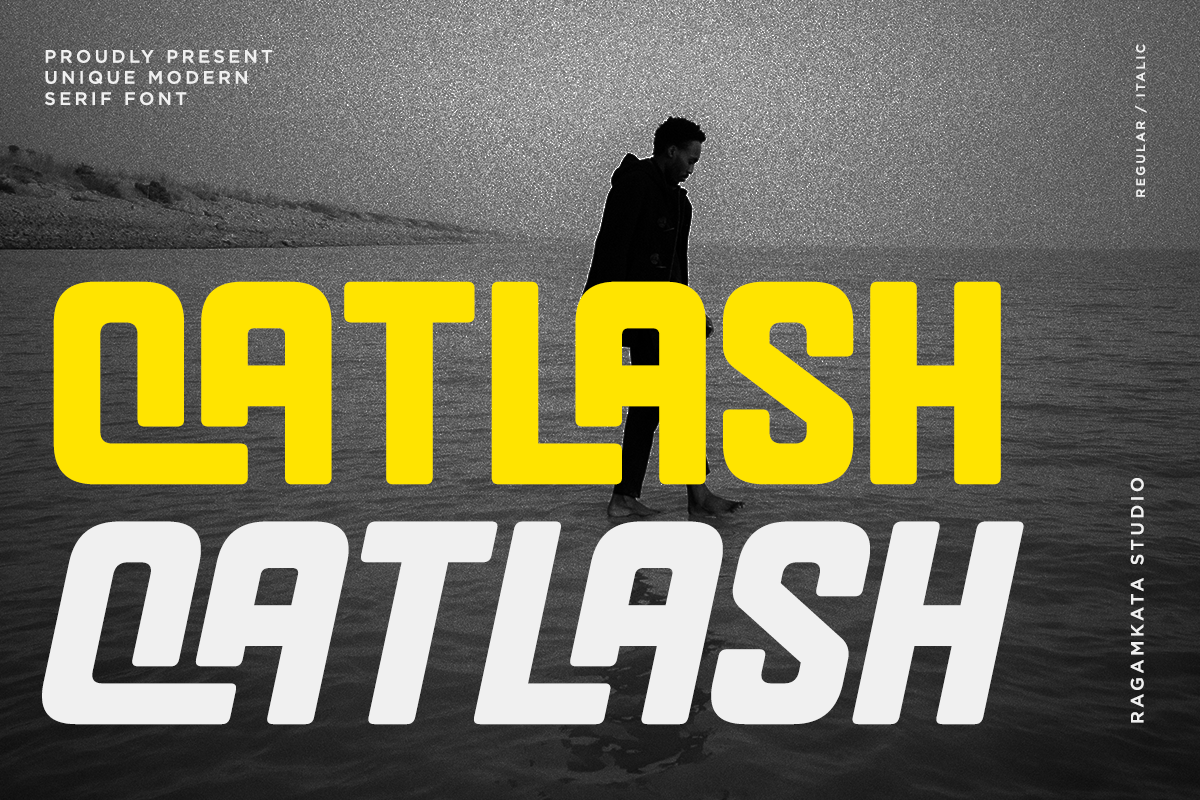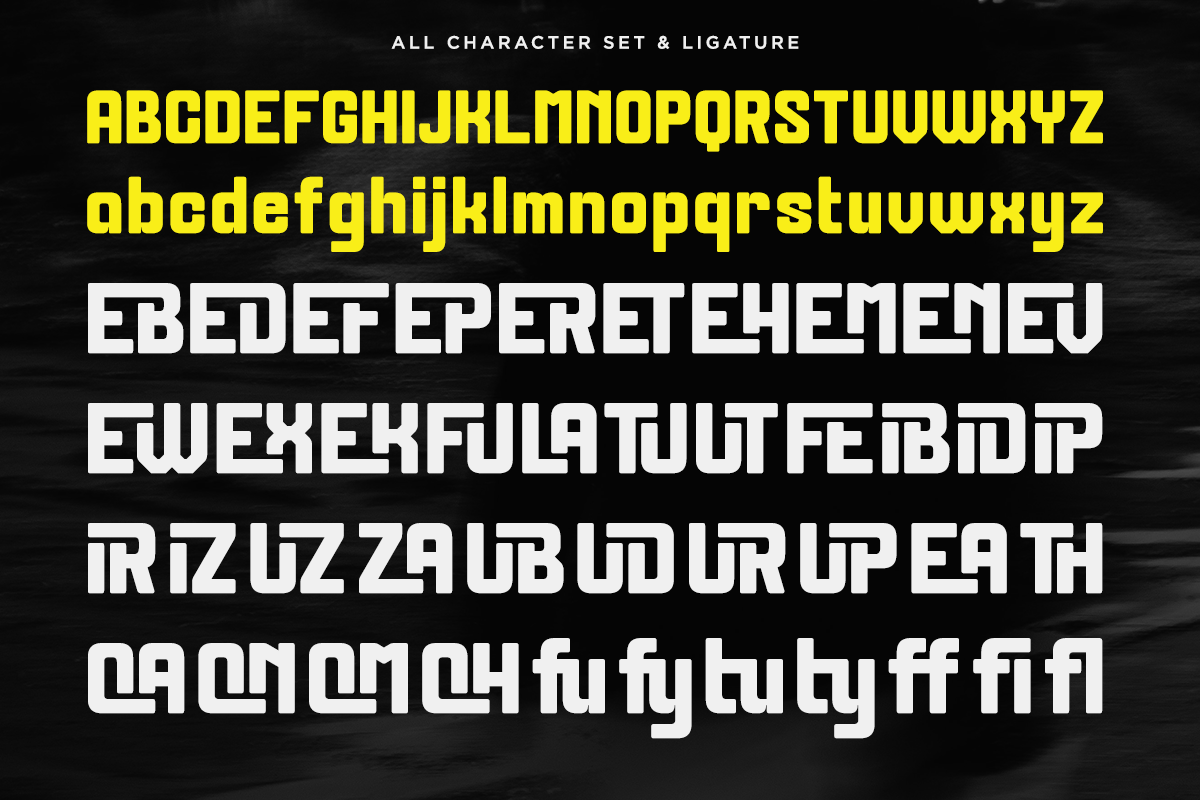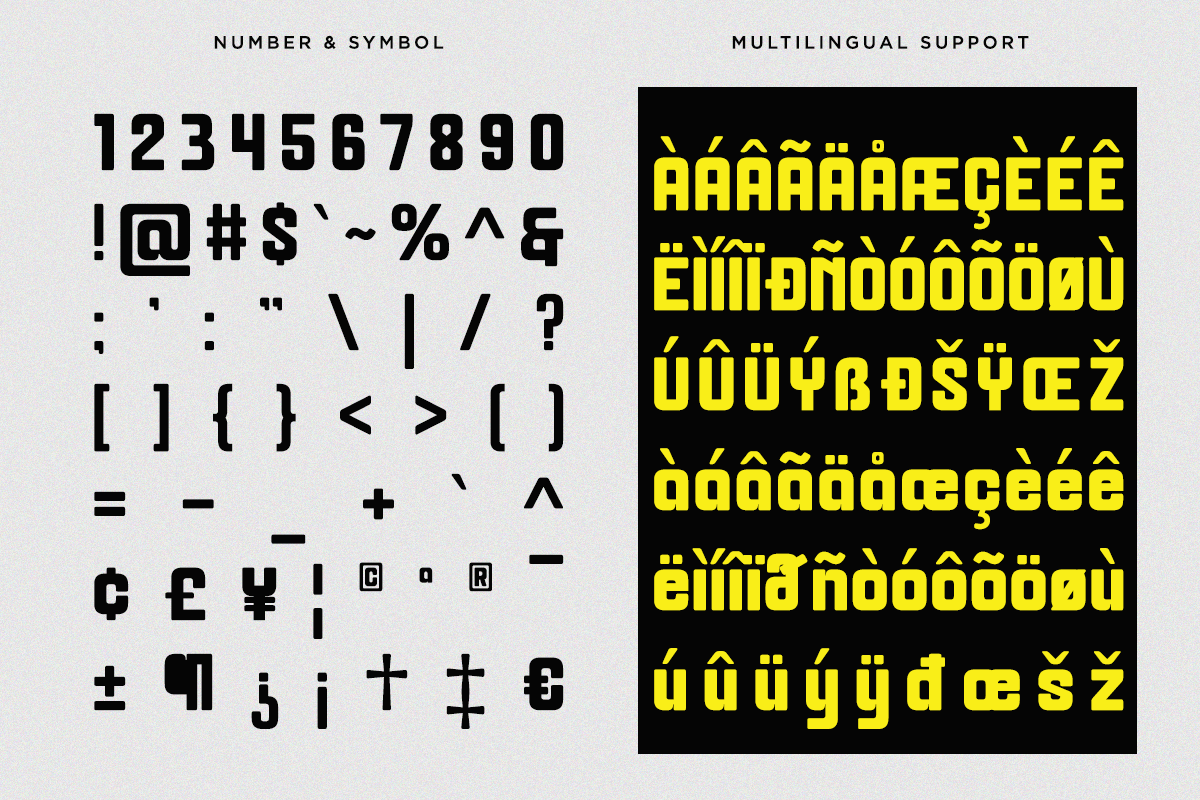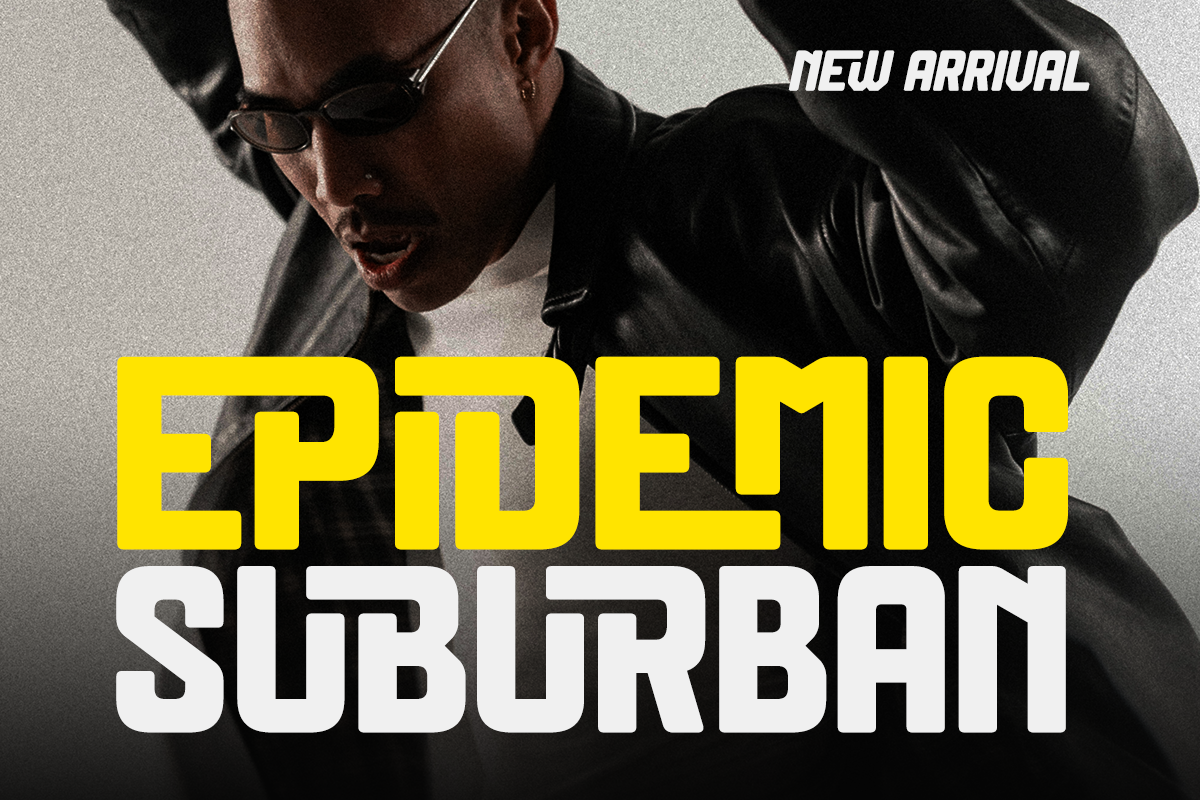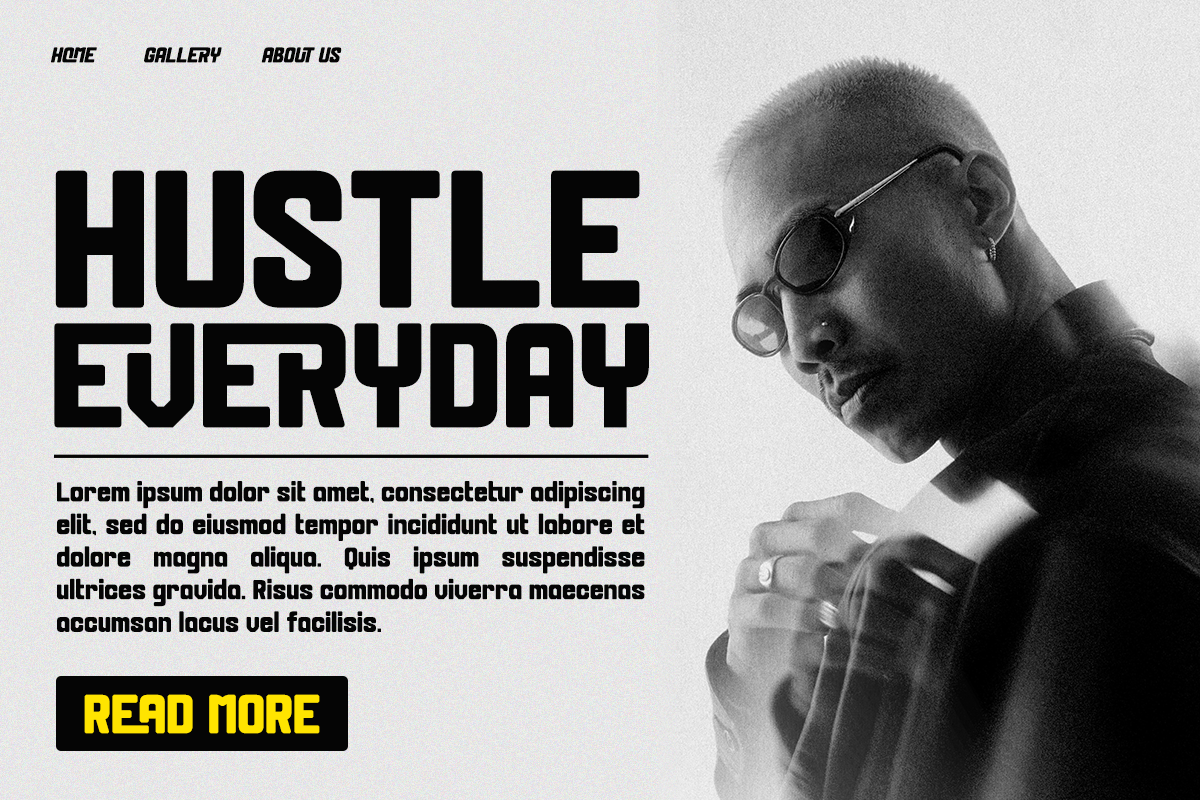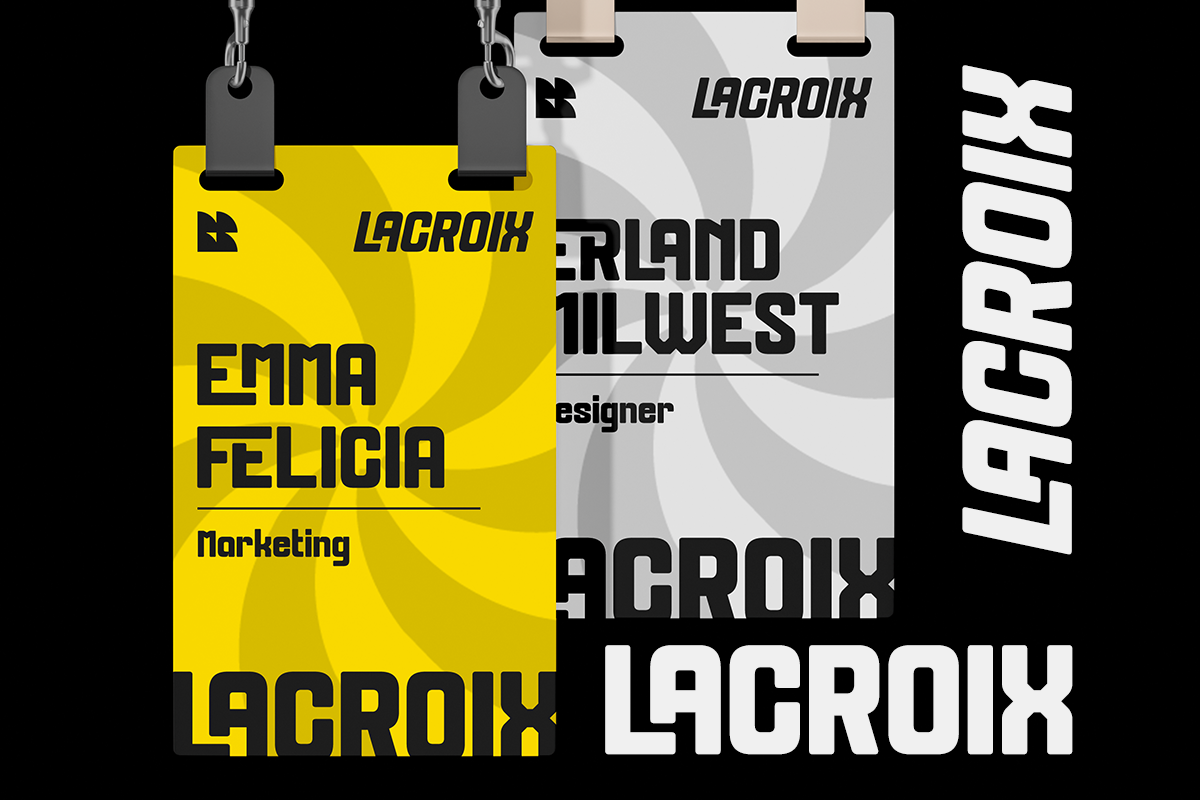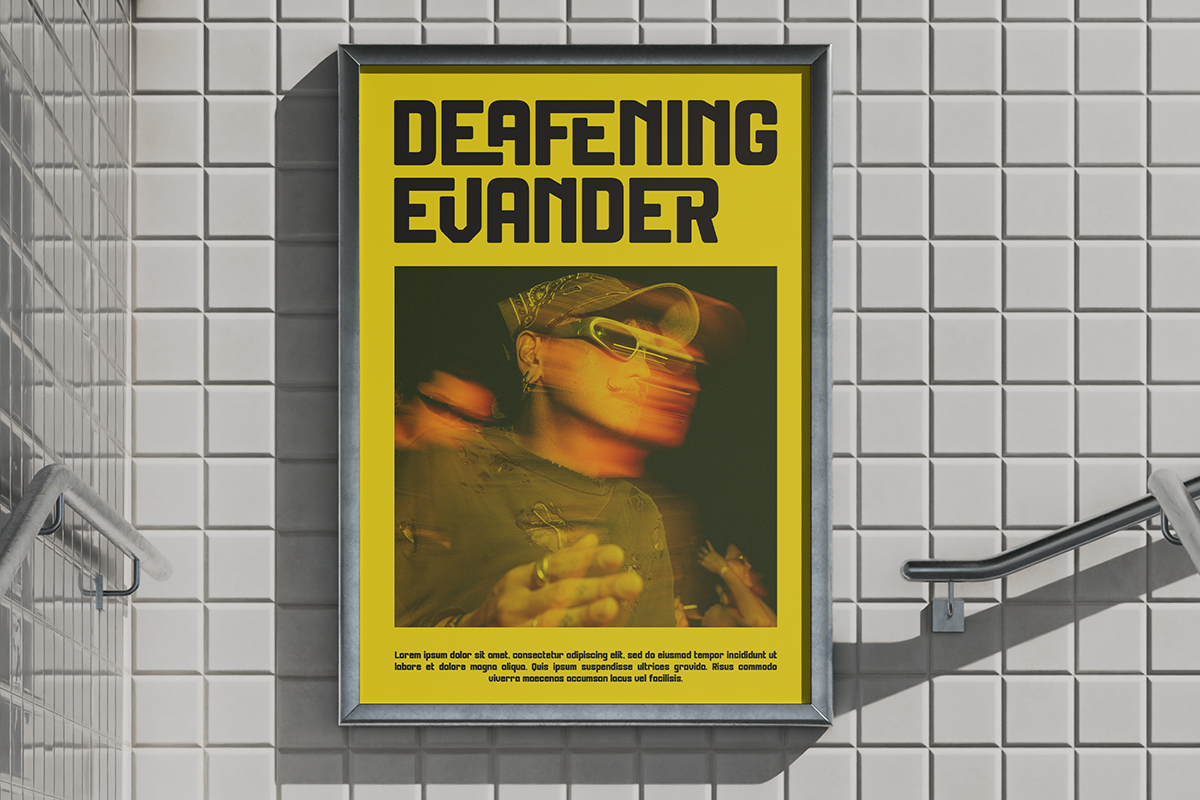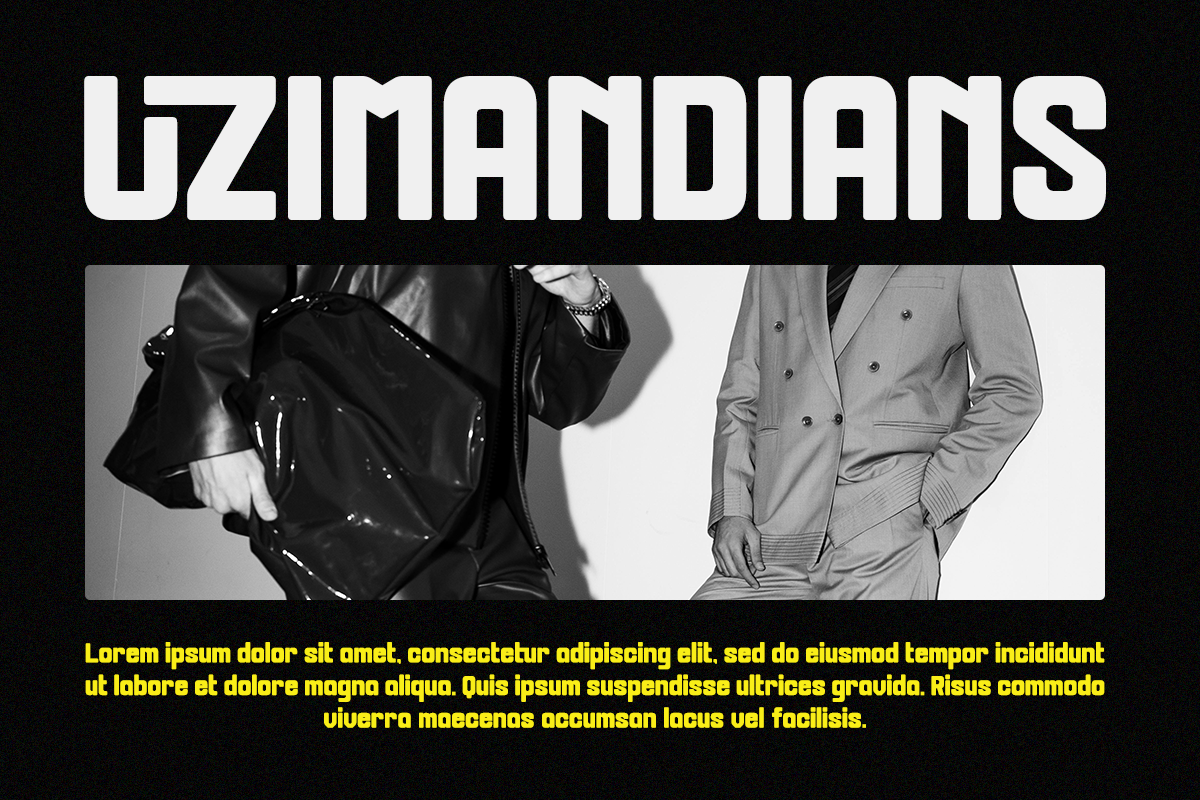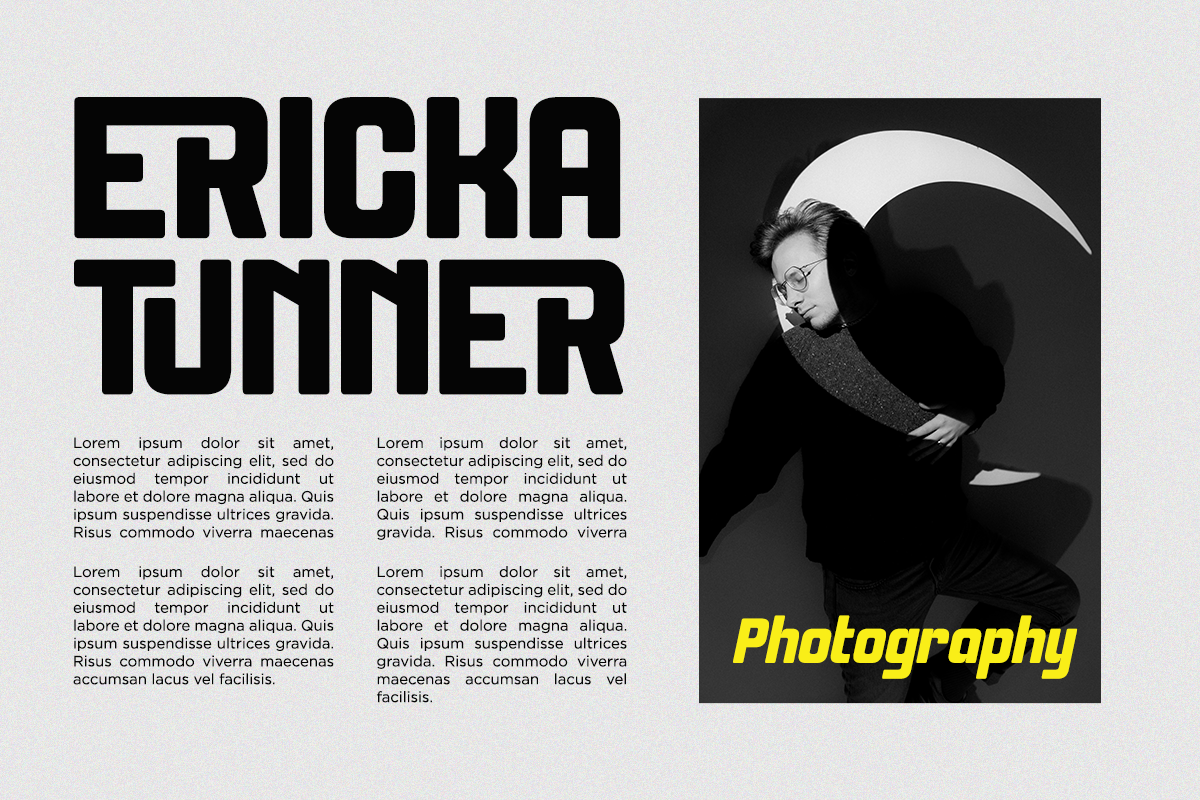
Oatlash - Bold Stylish Font
Oatlash is a bold and stylish modern serif display font that blends clean geometric design with a unique contemporary twist. With its strong presence, rounded cuts, and sleek futuristic personality, Oatlash is crafted to make your typography stand out instantly. Perfect for Branding & Logo Design, Social Media, Title, Headline, Editorial, Magazine, Packaging, Product, Website, and etc.
- Stylish Ligature Set ( Uppercase and Lowercase )
- Number, and Symbol